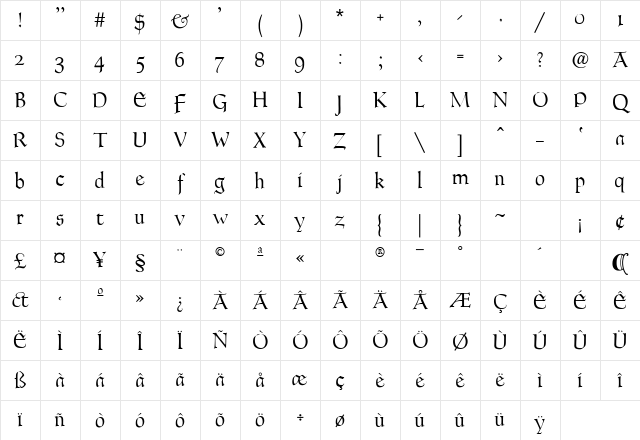
Complete GoudyThirtyH Regular glyph index. Displaying only characters natively supported by GoudyThirtyH Regular font.
GoudyThirtyH is a composed and adaptable typeface that performs quietly and consistently across a wide range of design contexts.